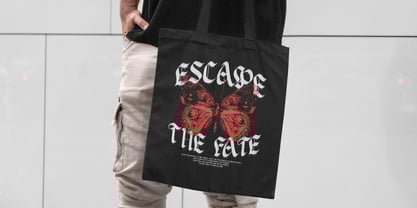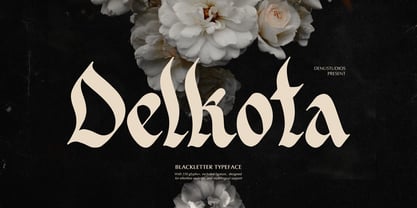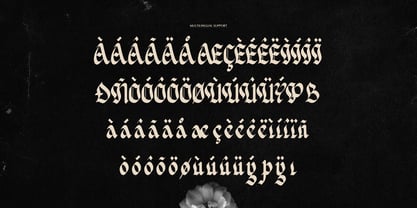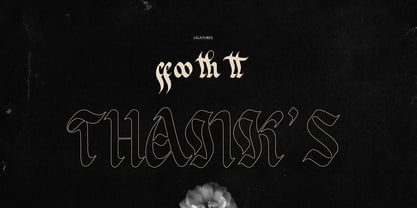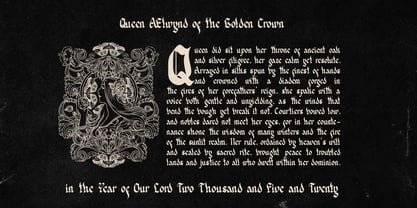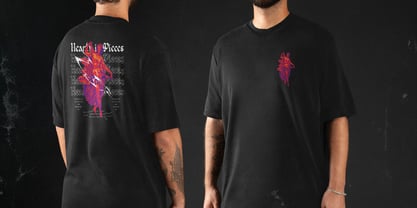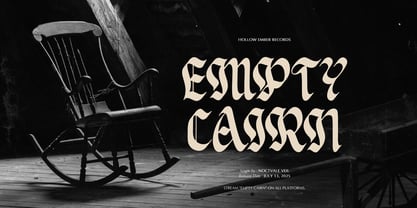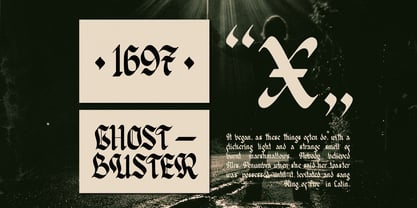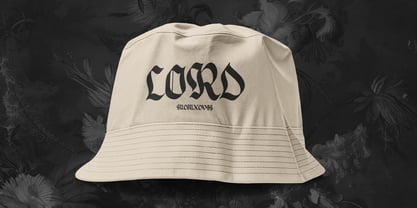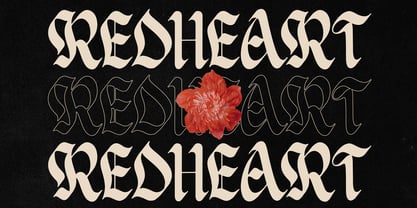
Delkota
by Denustudio
The Delkota Font Family was designed by Dede Nugraha and published by Denustudio. Delkota contains 1 styles. More about this family
Delkota | Blackletter Typeface, from Denustudios, suitable for any projects such as: logos, branding projects, homeware designs, product packaging, mugs, quotes, posters, shopping bags, t-shirts, book covers, name card, invitation cards, greeting cards, label, photography, watermark, special events, and all your other lovely projects that need Blackletter Typeface a taste.
• Regular and Italic
• Alternate and Ligature
• Fonts include multilingual support